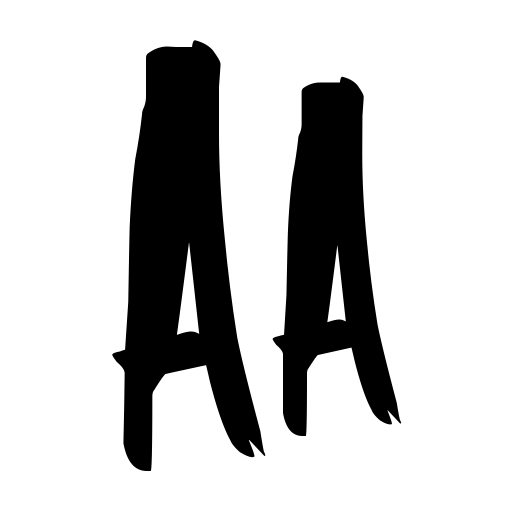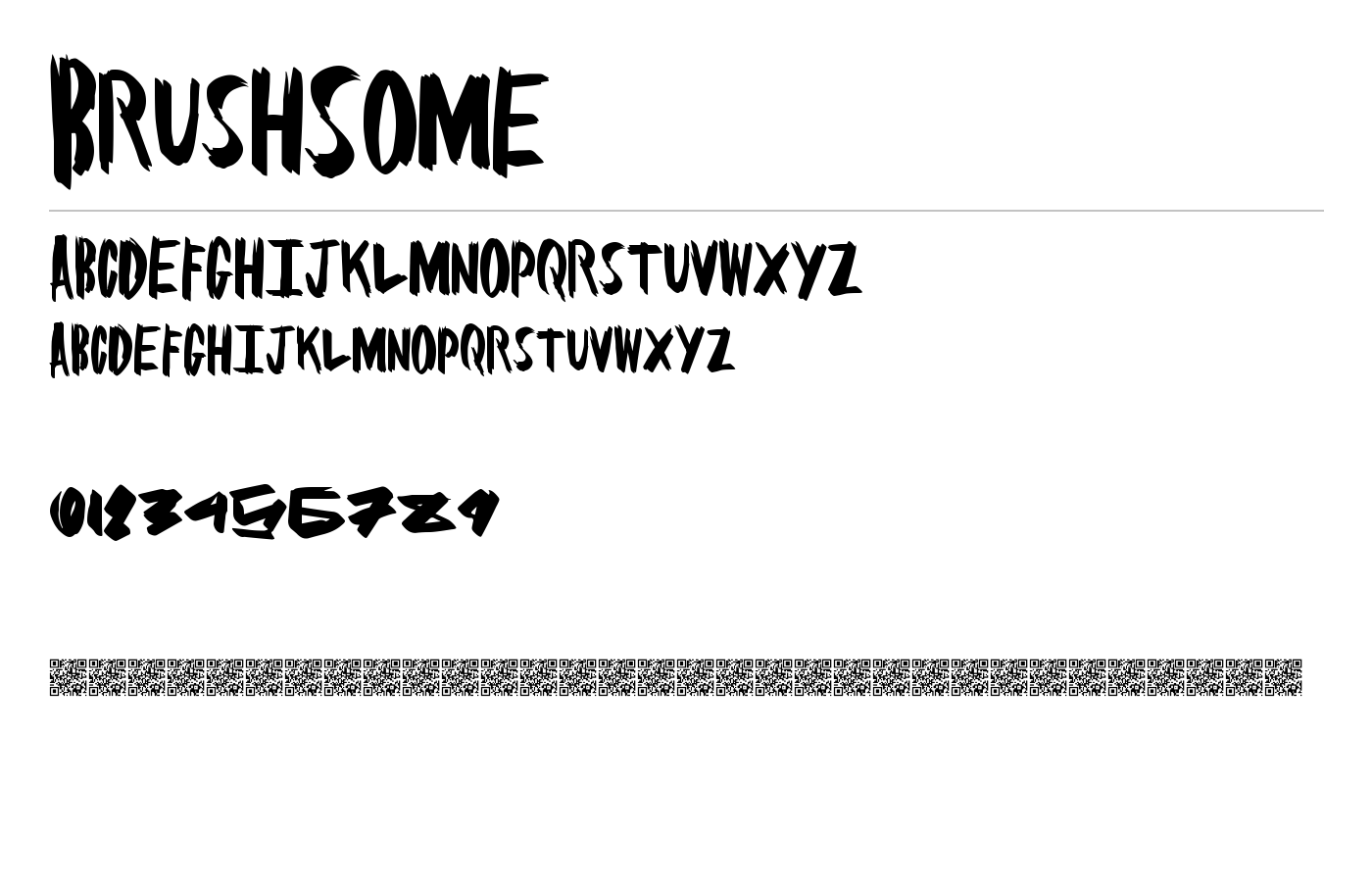
BrushSome is a bold, expressive brush-style sans serif font with rough, hand-painted textures that give it an energetic, dynamic feel. Its uneven strokes and irregular edges convey creativity and spontaneity, making it perfect for eye-catching headlines, posters, or branding that wants a playful, artistic vibe. This font stands out in projects needing a strong, informal character with a raw and lively personality.
BrushSome Font
About BrushSome Font